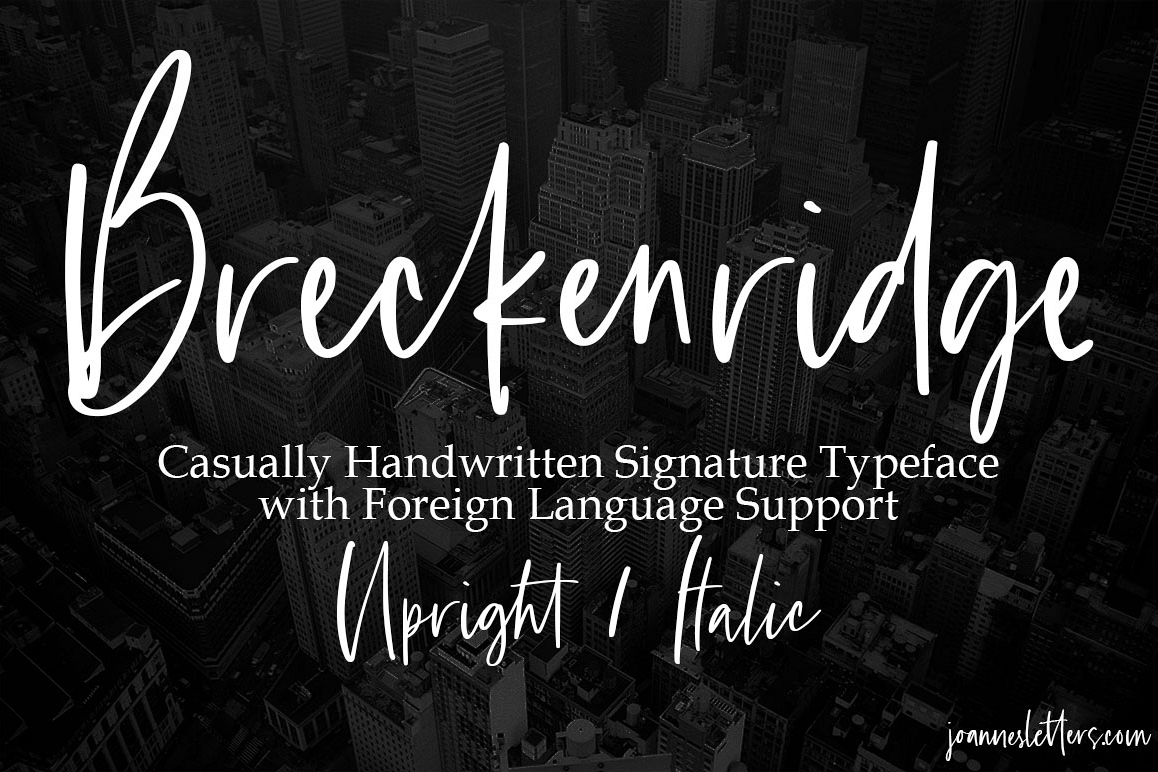
Breckenridge Signature Font Duo Casual Signature Typeface
Breckenridge Signature Upright
Breckenridge Signature Italic
Introducing: Breckenridge Signature Font Duo
I made this font to look as close to a casual handwritten script as possible by including 96 ligatures.
This font is perfect for invites, postcards, branding, etc. It is really important to humanize your brand at this day and age, so I am sure this font will definitely add a new touch on yours.